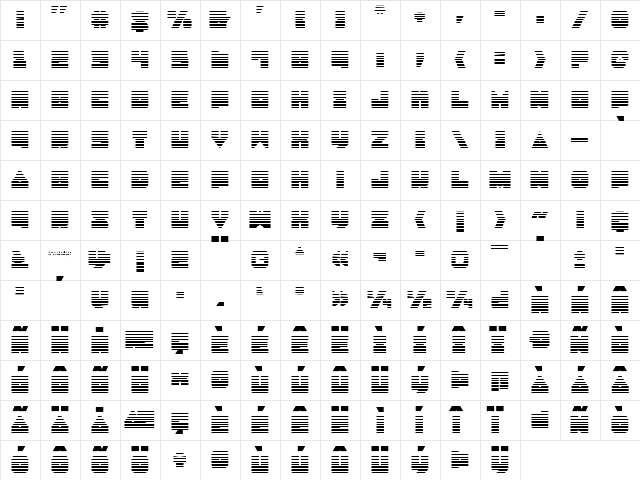
Lobo Tommy Gradient Regular
Design Context for Lobo Tommy Gradient Typeface
Lobo Tommy Gradient is a composed and adaptable typeface that performs quietly and consistently across a wide range of design contexts.